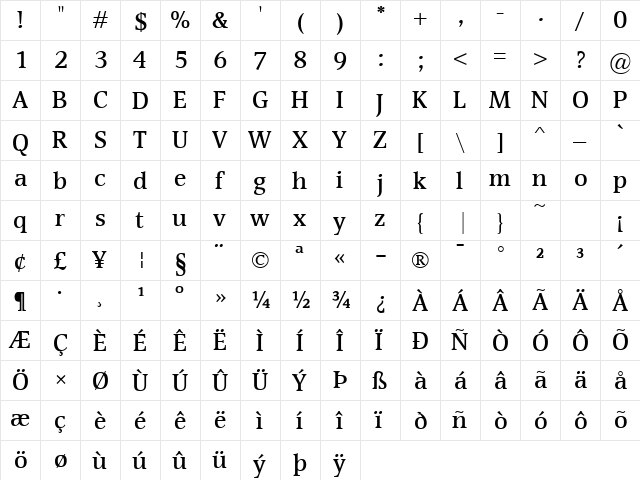
Devin SemiBold Regular
Design Context for Devin SemiBold Typeface
Devin SemiBold takes a measured approach to typography — its balanced proportions and neutral character make it a reliable workhorse for both digital and print work. The heavy weight commands attention and anchors typographic hierarchies.